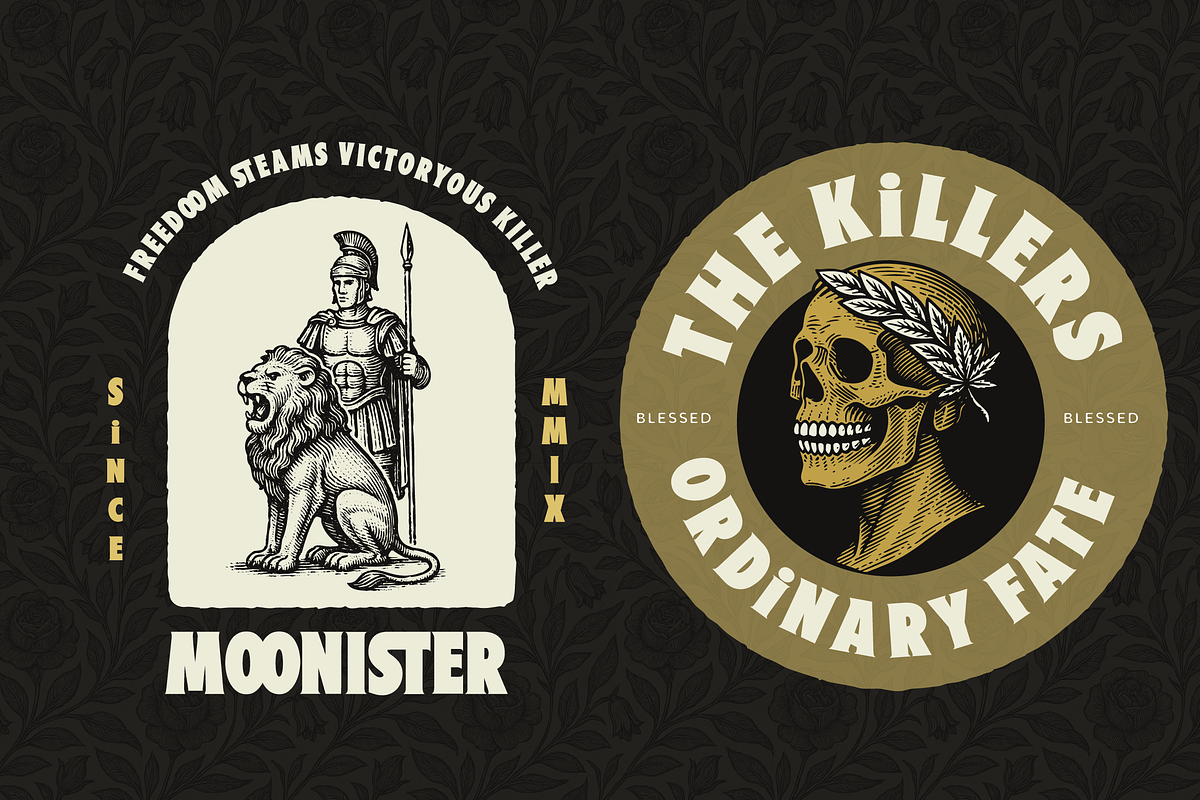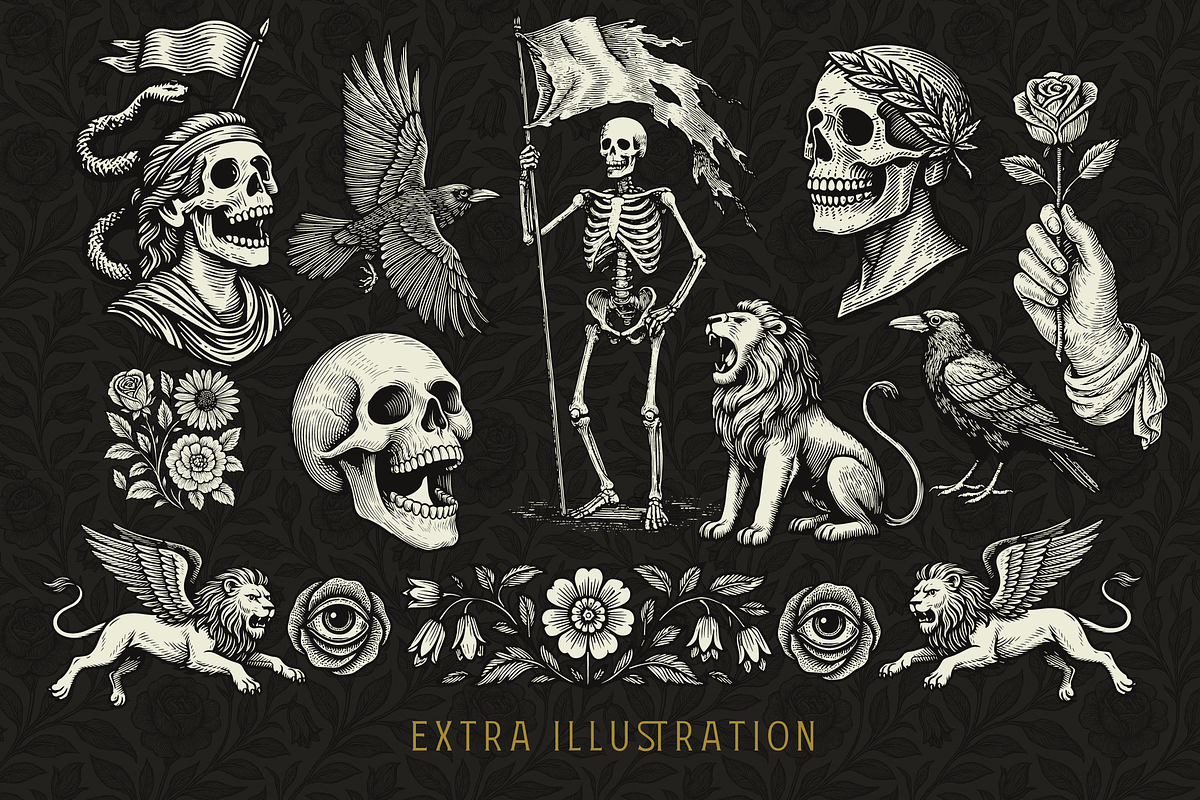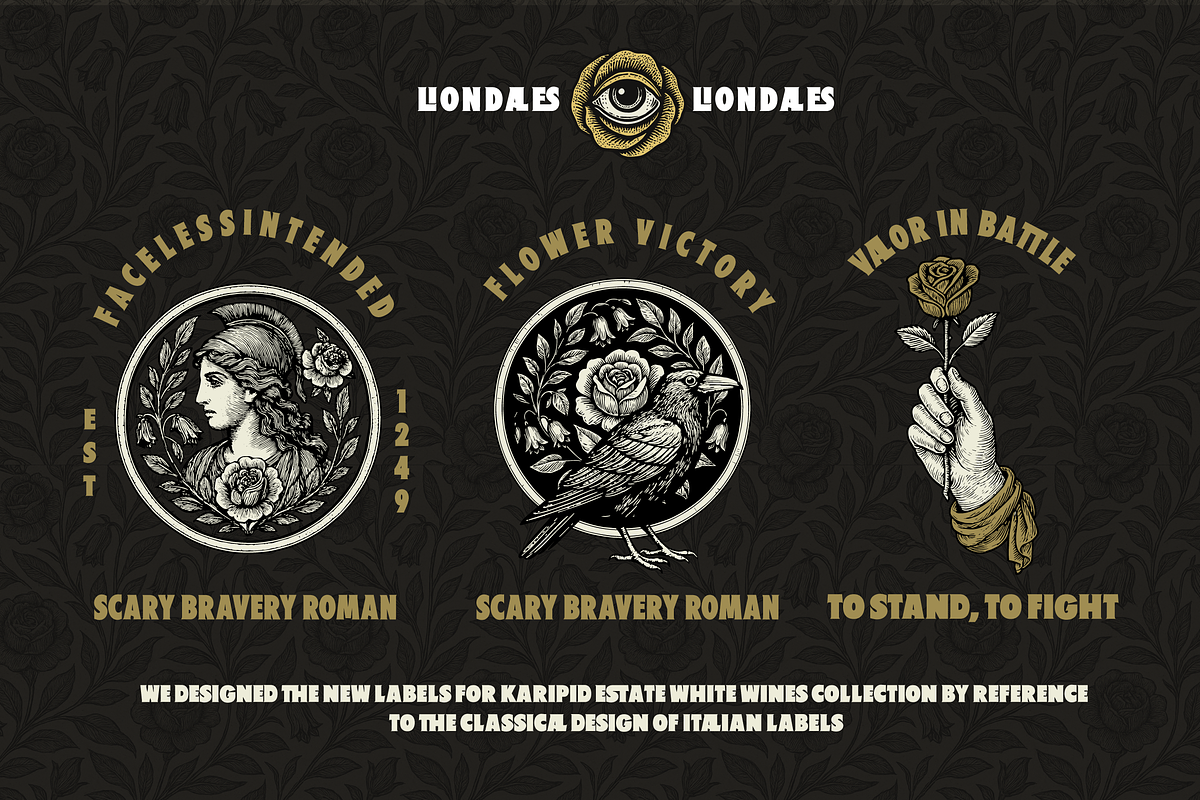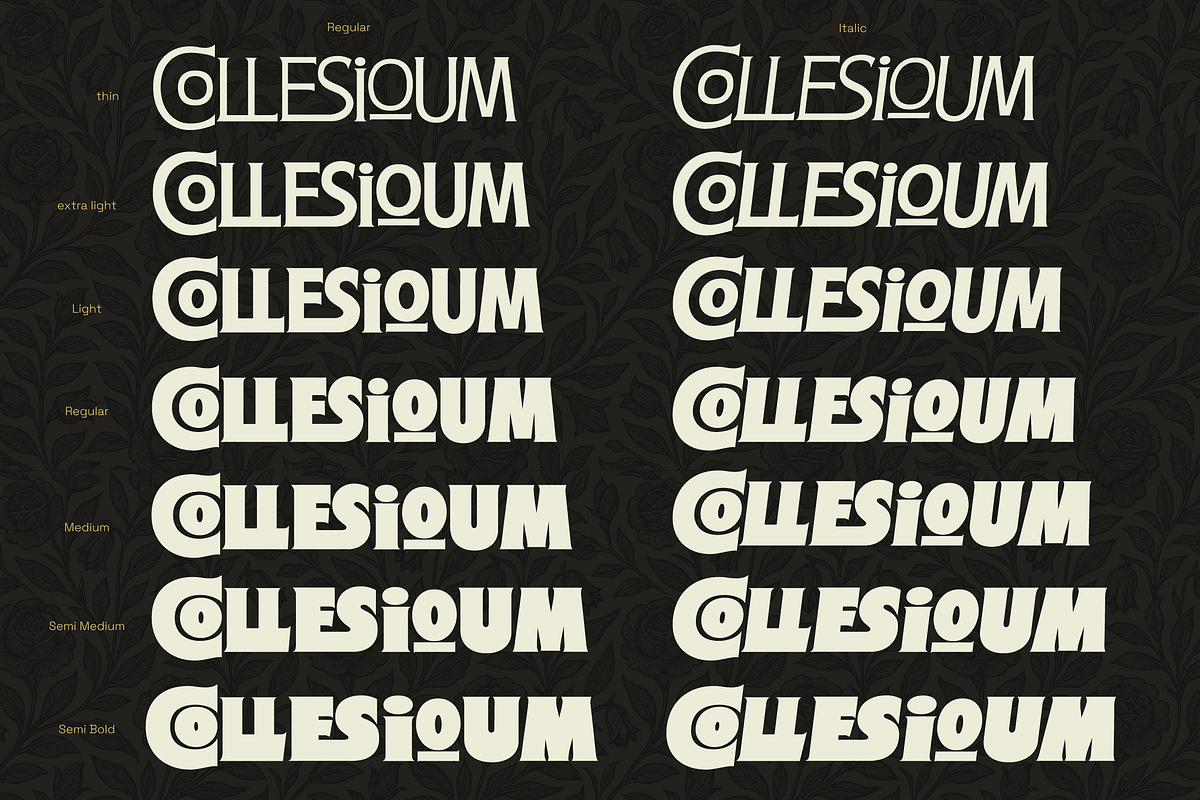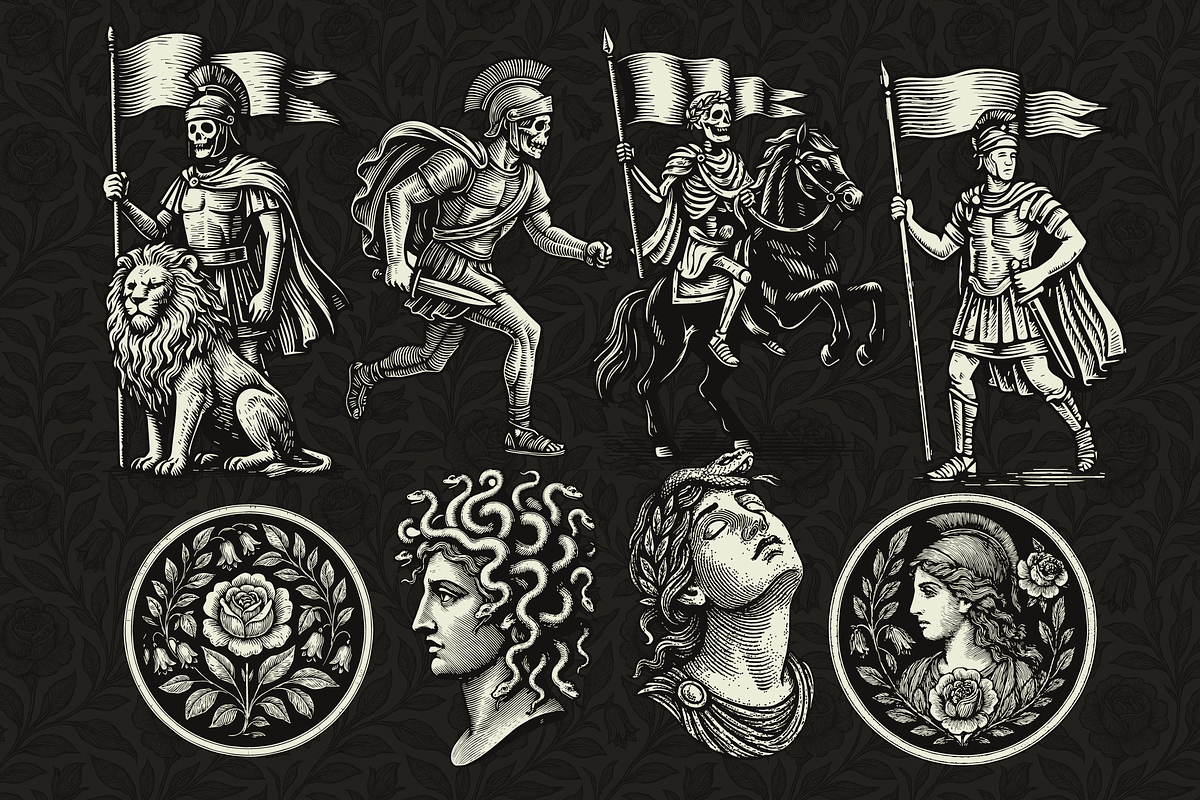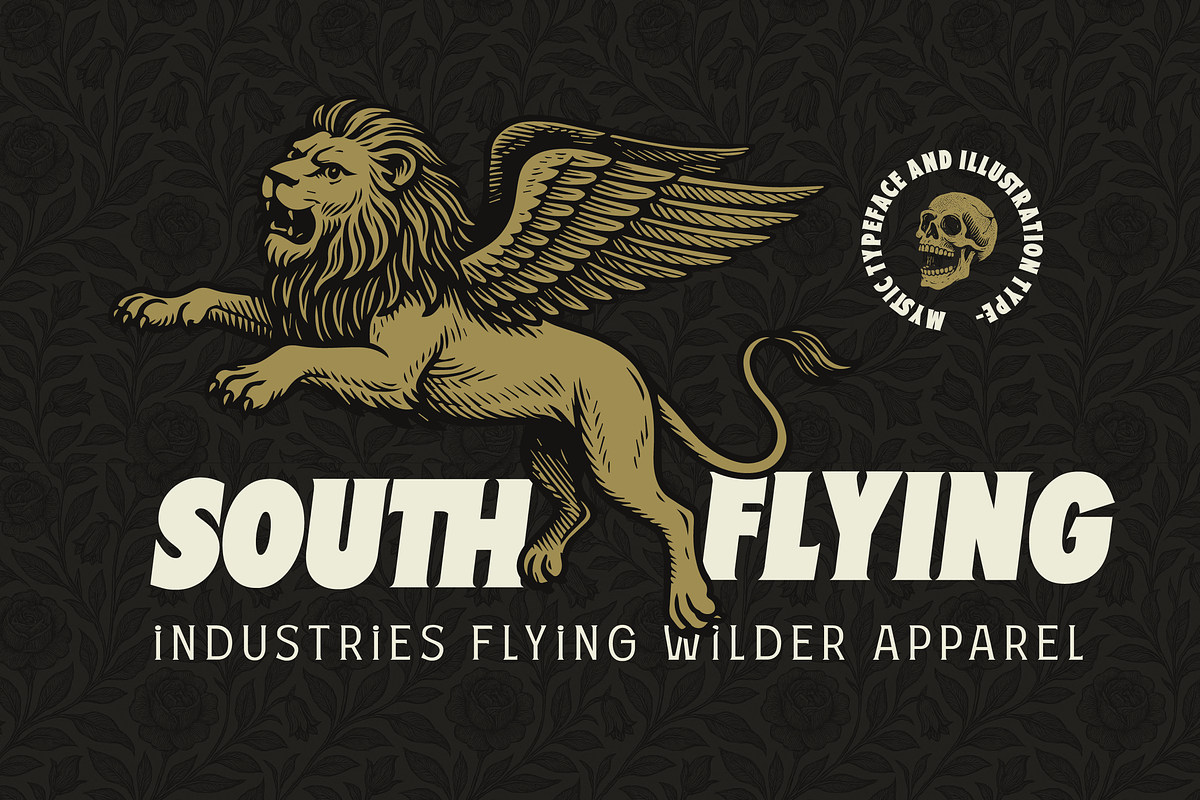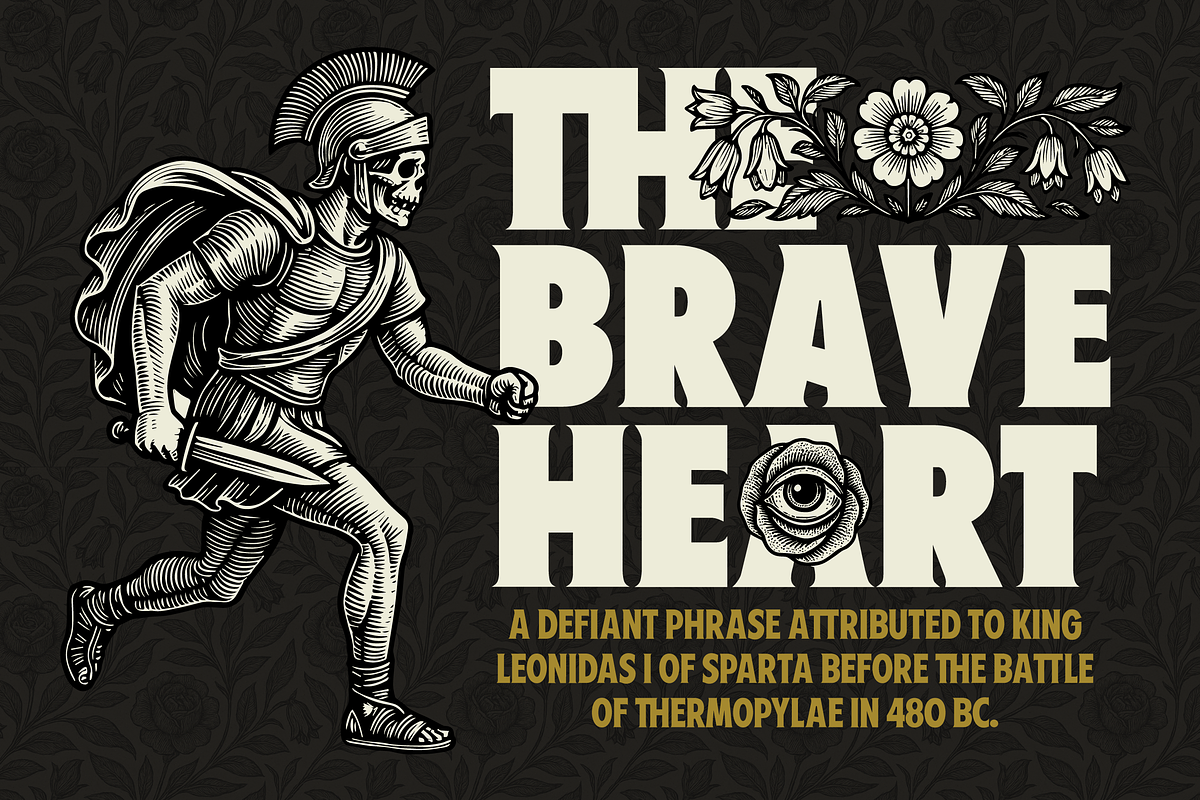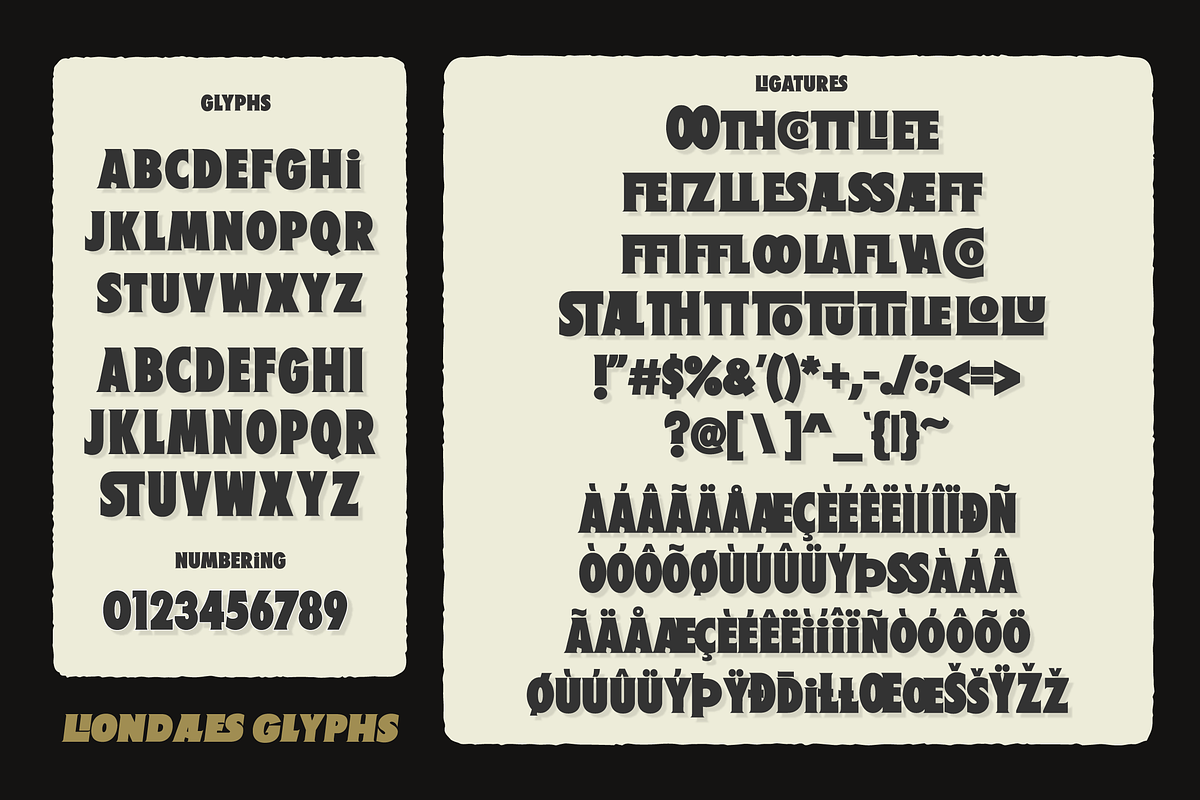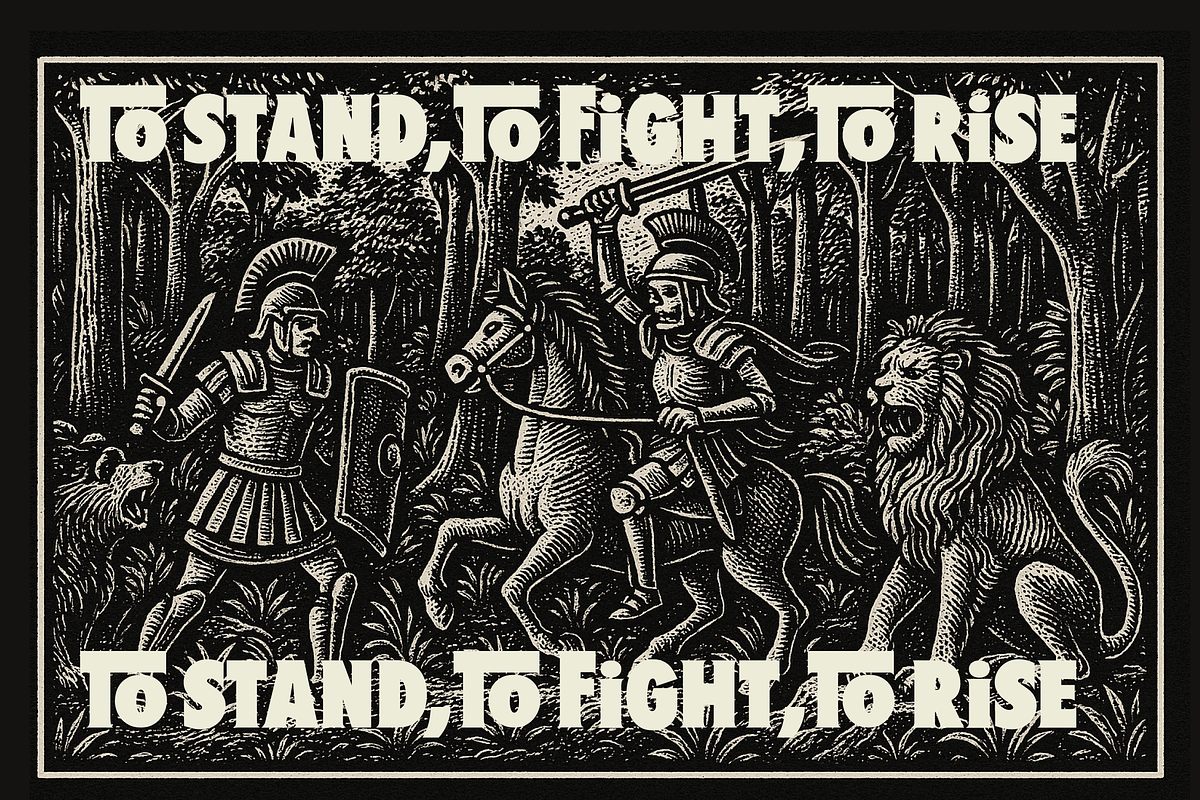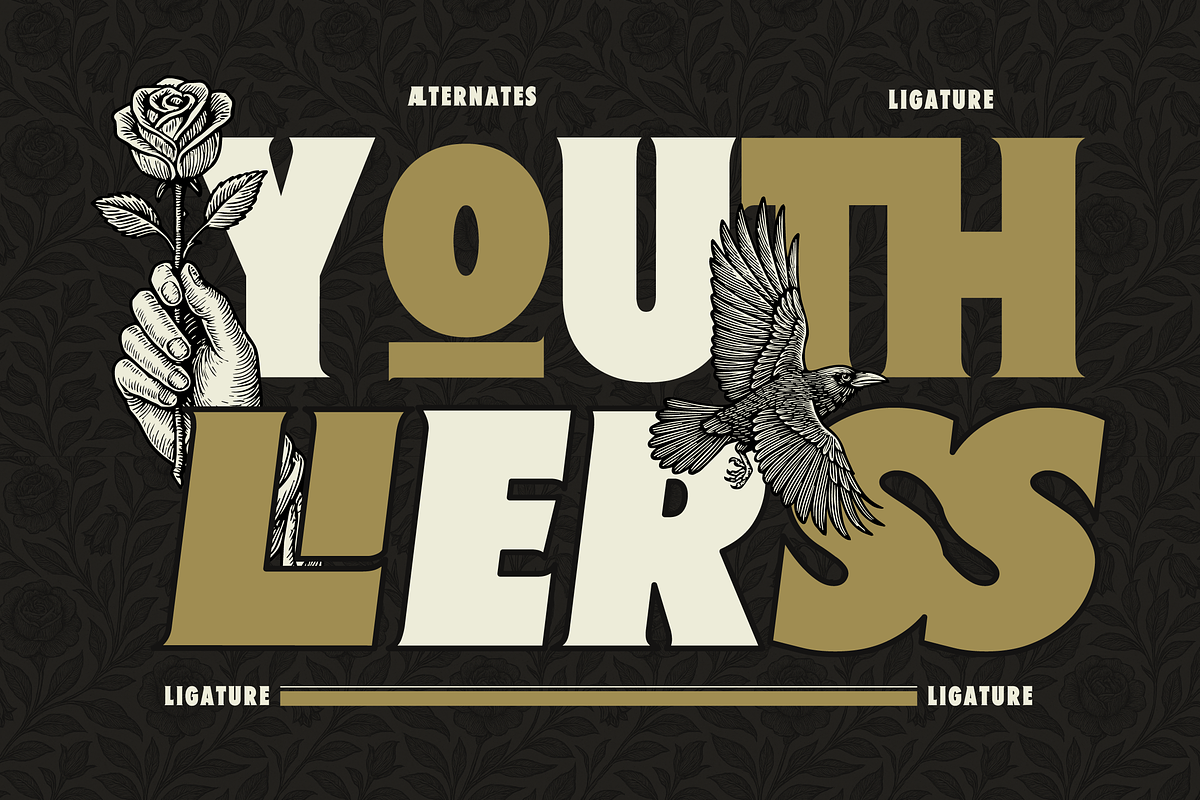
Fd Liondales + Extra
LIONDALES – Colossal Retro Serif Typeface Step into a world of grandeur with Liondaes, a colossal retro serif typeface inspired by ancient legends and timeless design. With its monumental letterforms and dramatic curves, Liondaes evokes the spirit of classic empires, heroic tales, and mythical icons.
Crafted to stand tall like stone-carved inscriptions, every glyph carries weight and majesty—perfect for designs that demand attention and authority. Whether you're designing for film titles, historical branding, vintage posters, or bold editorial layouts, Liondaes brings a regal and theatrical feel to your project.
- All caps with stylistic alternates
- Custom ligatures
- Numbering & Punctual
- Dingbat
- Extra Vector Illustration
Liondaes is not just a font—it’s a tribute to greatness, made to conquer every headline with style.